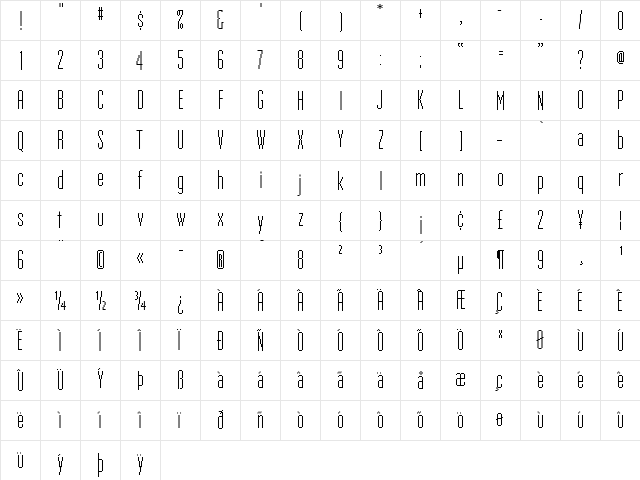
UniversalNineTeen Regular
Design Context for UniversalNineTeen Typeface
UniversalNineTeen takes a measured approach to typography — its balanced proportions and neutral character make it a reliable workhorse for both digital and print work.